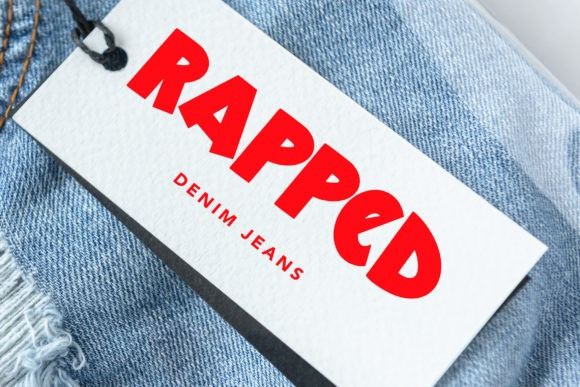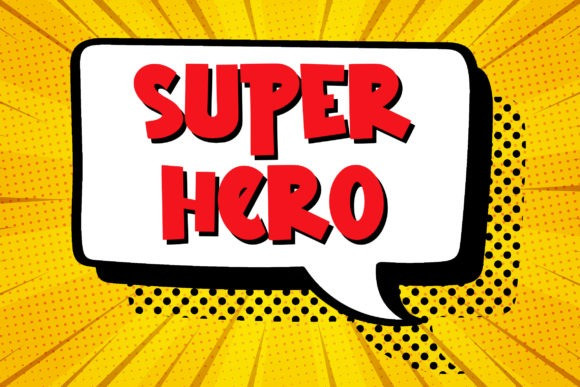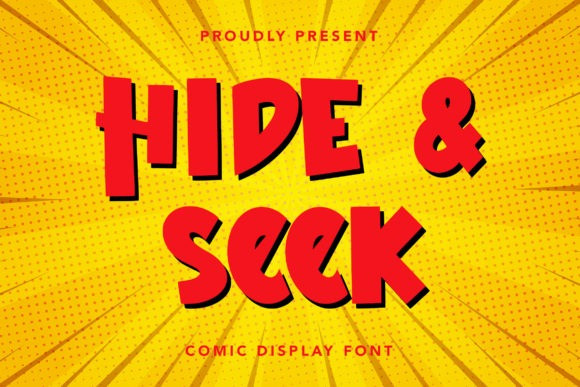
Hide And Seek Font
Hide And Seek Display Font is a playful and bold display font inspired by comic books and creative cartoons. It is perfect for projects that need creative and fun typography!